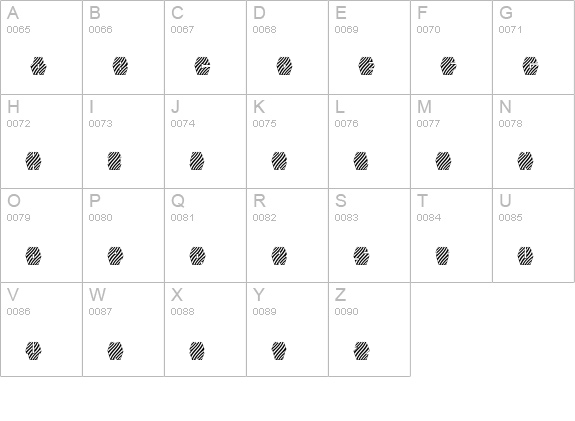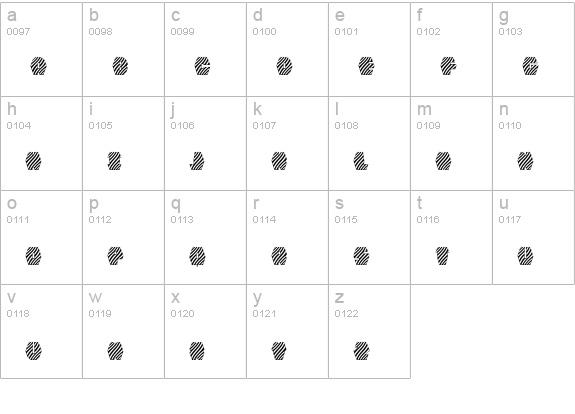
Zebraw Font Details
Zebraw font exudes a unique and playful charm with its stylish and eye-catching design. This modern typeface features bold lines and distinctive zebra-like patterns that make it stand out from the crowd. Perfect for adding a touch of creativity to your projects, Zebraw font is versatile and can be used for a variety of design applications. Best of all, Zebraw font is available for free download at FontsMarket.com. That's right, you can enhance your designs with this striking font without having to spend a penny. Don't miss out on the opportunity to add a touch of whimsy to your projects with Zebraw font – download it today and let your creativity shine!